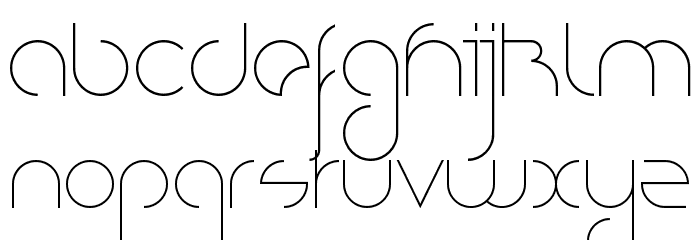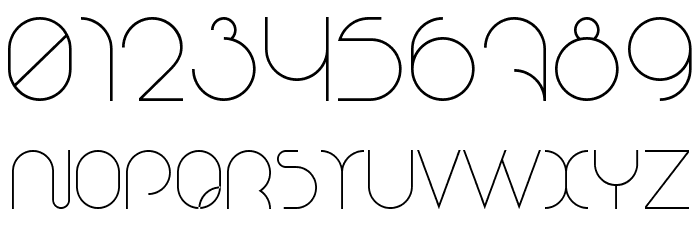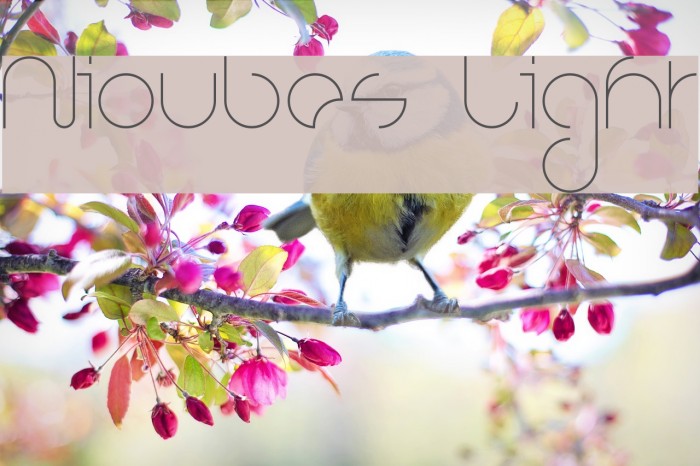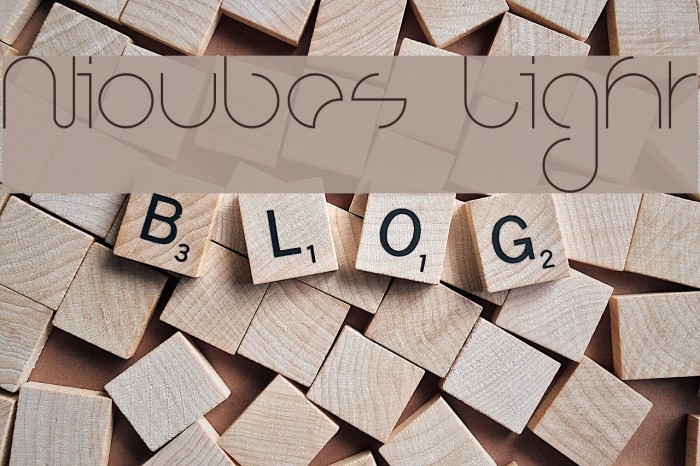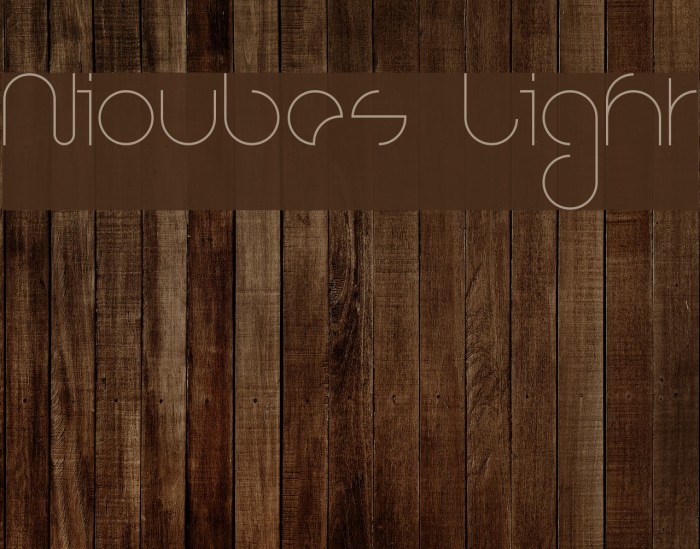
Nioubes Light Font
This font features a sleek and modern design with thin, continuous lines that create a minimalist and futuristic appearance. The characters are composed of geometric shapes, with a focus on circular and semi-circular forms. The uppercase and lowercase letters maintain a consistent style, with a unique approach to curves and angles that adds a distinctive flair. The numerals and special characters follow the same design principles, ensuring a cohesive look across all elements. This font's light weight and open structure make it ideal for projects that require a clean and airy aesthetic.
A modern, geometric font with thin lines and a minimalist style.
- Proposed Projects: Ideal for tech branding, modern art posters, minimalist design projects, and futuristic interfaces.